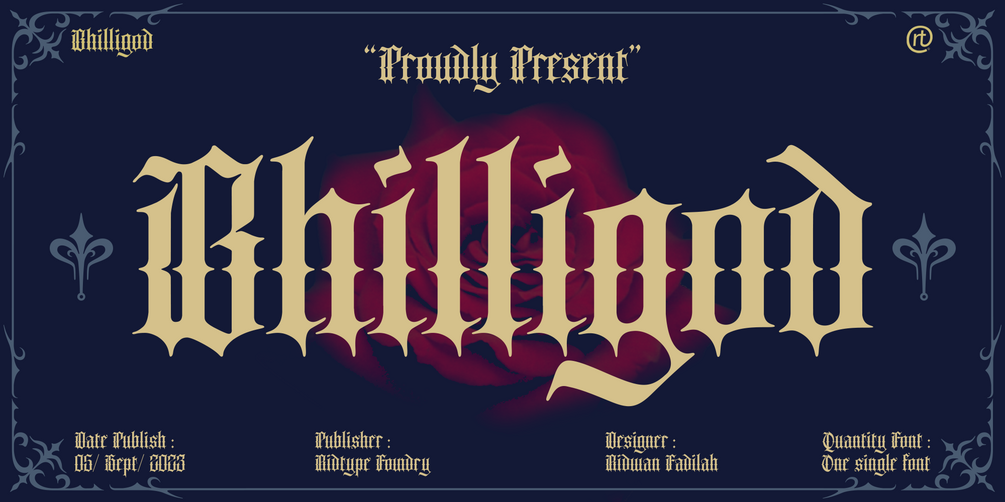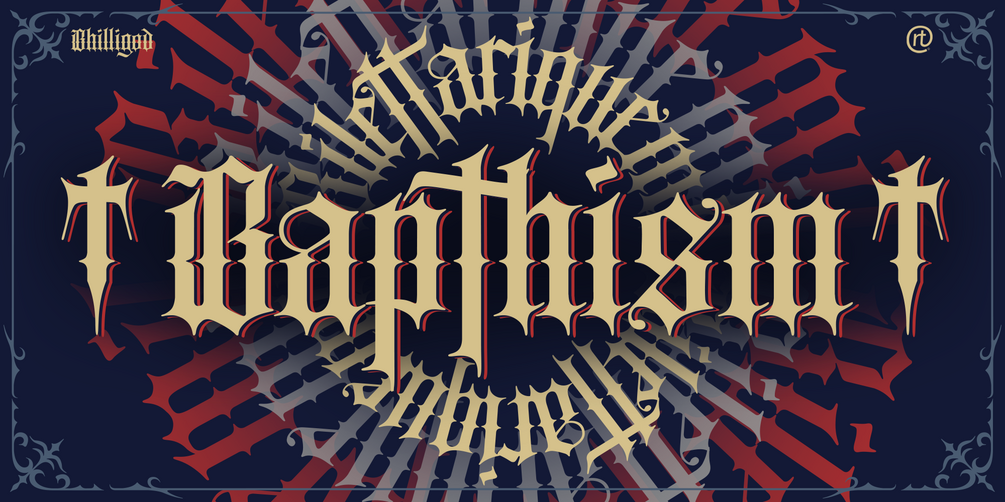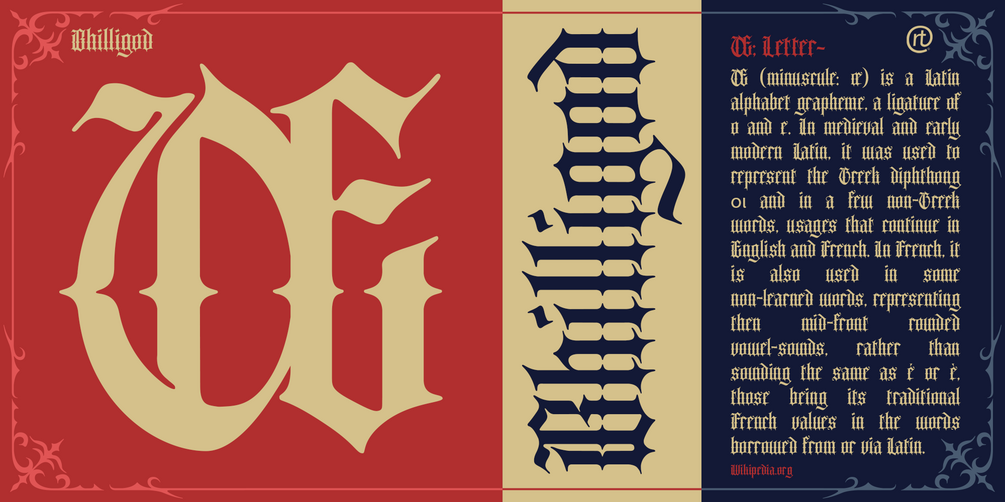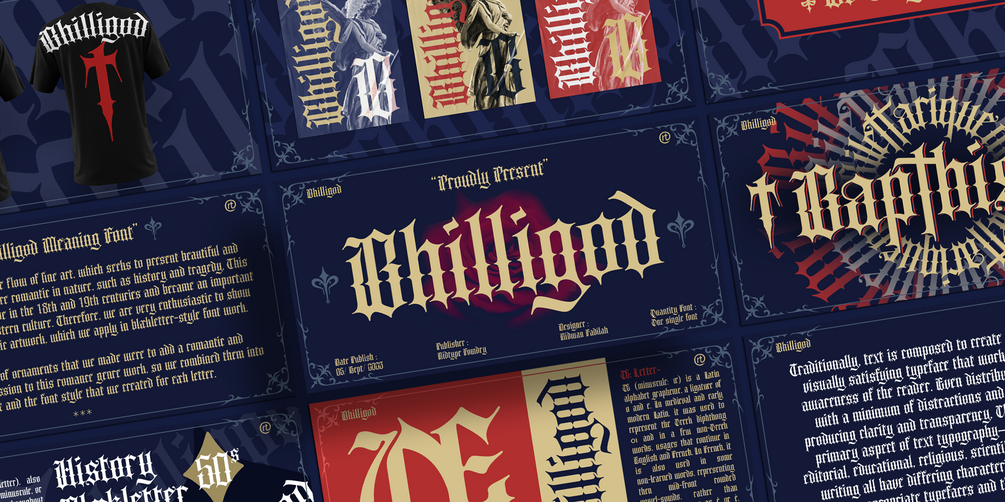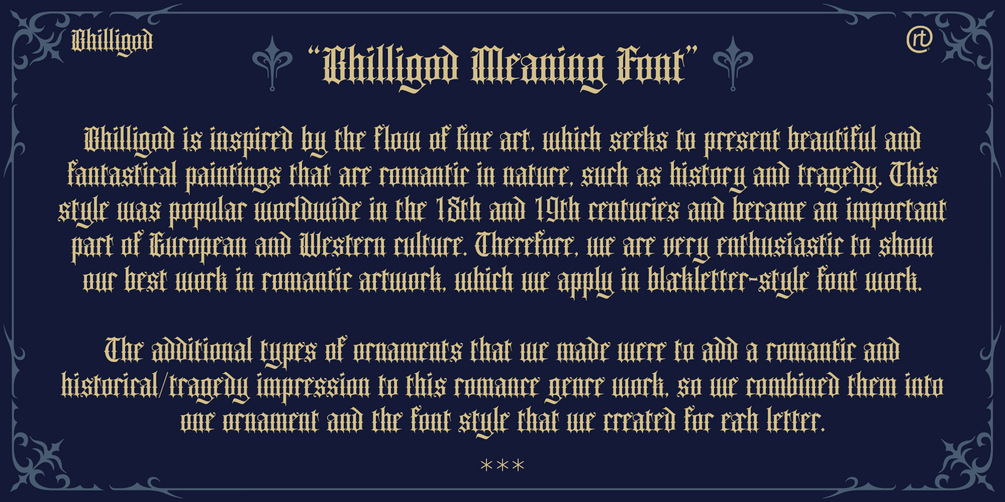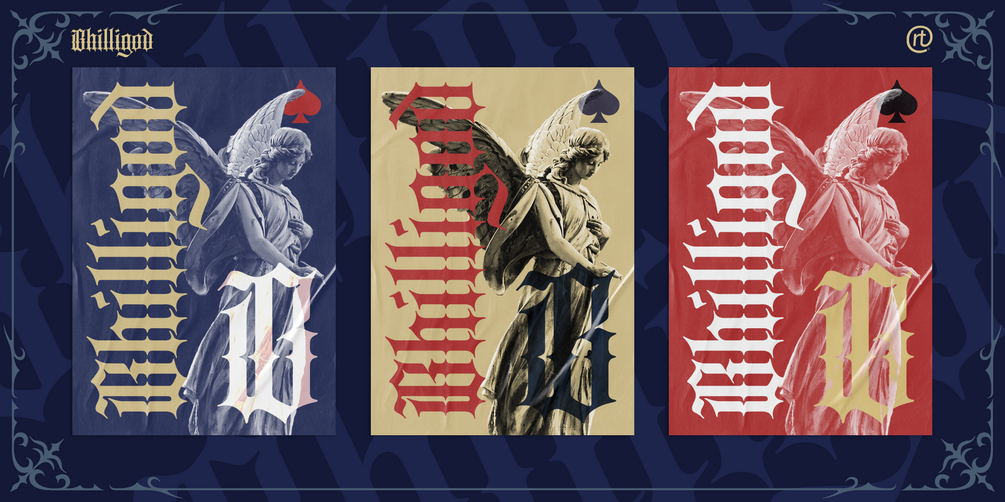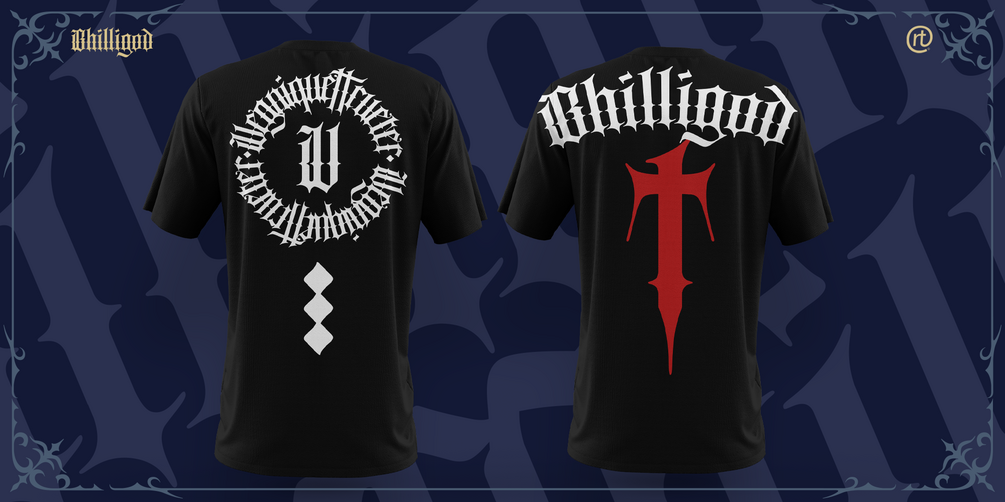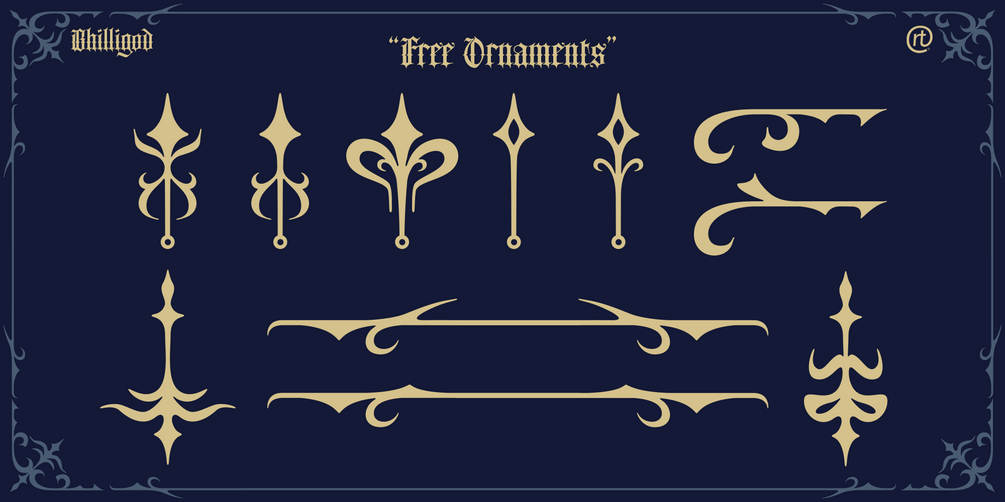
Bhilligod - Blackletter Font
Bhilligod is inspired by the flow of fine art, which seeks to present beautiful and fantastical paintings that are romantic in nature, such as history and tragedy. This style was popular worldwide in the 18th and 19th centuries and became an important part of European and Western culture. Therefore, we are very enthusiastic to show our best work in romantic artwork, which we apply in blackletter-style font work.
The additional types of ornaments that we made were to add a romantic and historical/tragedy impression to this romance genre work, so we combined them into one ornament and the font style that we created for each letter.
• Details Font : Gothic Blackletter